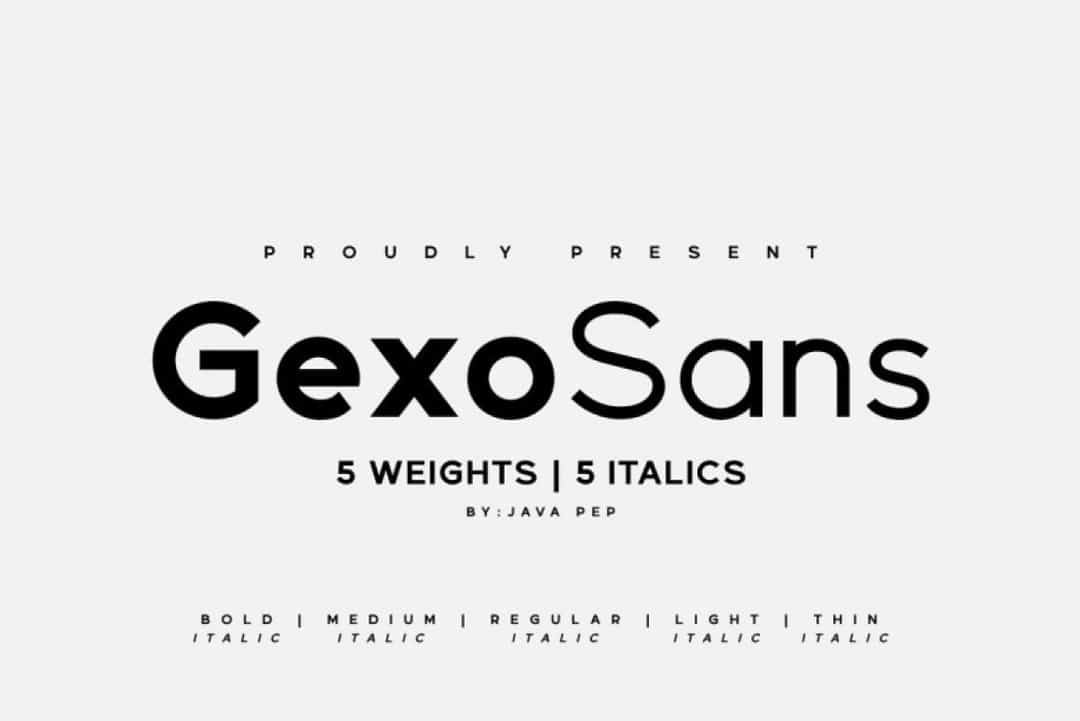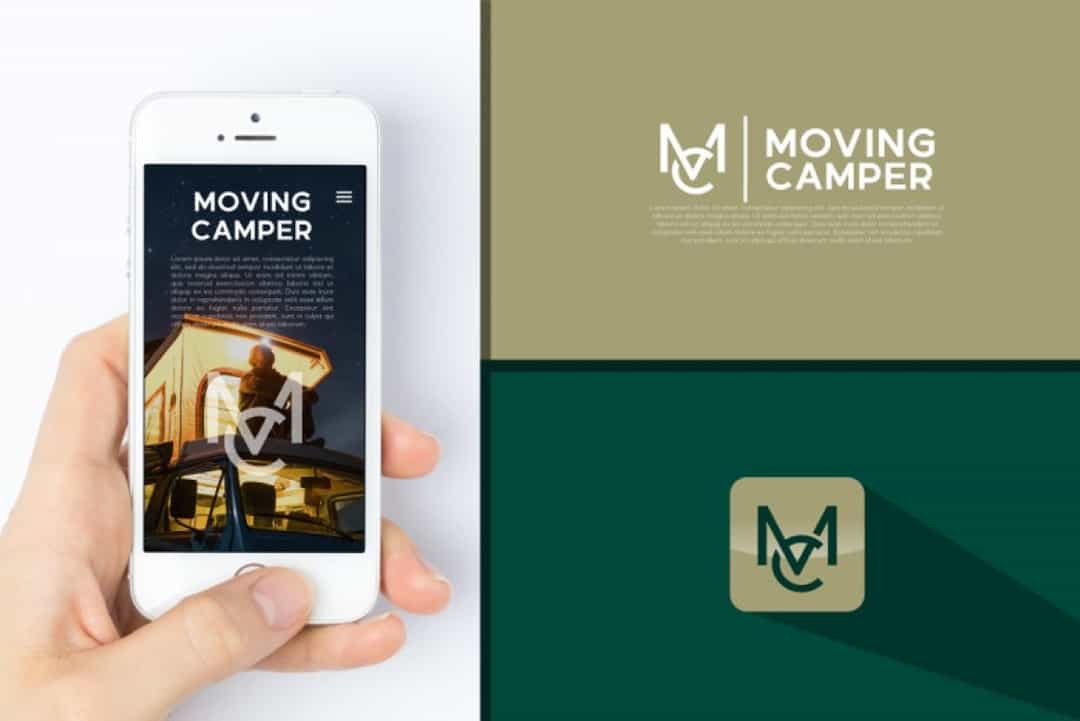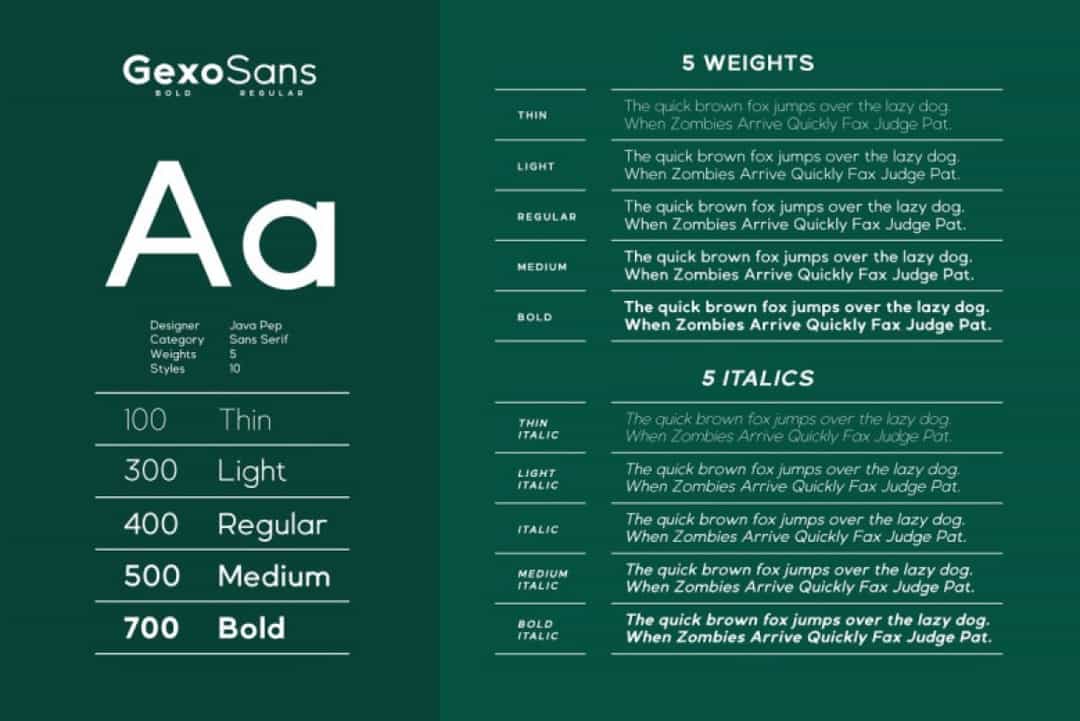
Gexo Sans Font is our latest beautiful sans serif font family, offering five weights and five italics, suitable for use in elegant projects of all kinds – posters, logotypes, advertising titles, headlines publication fonts text fonts etc. Supporting multilingual use over 30 languages!